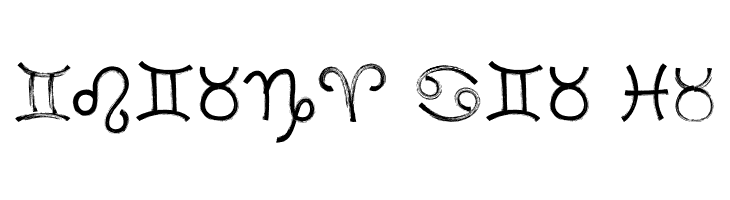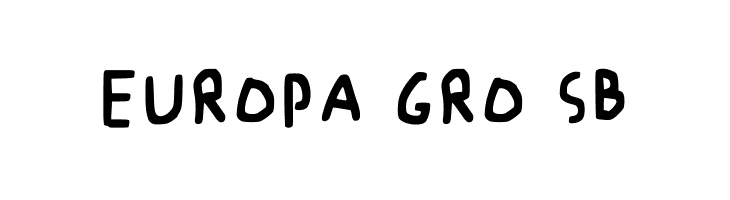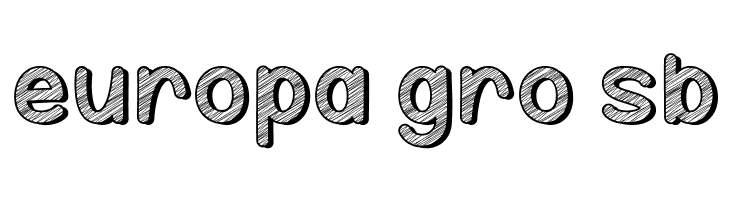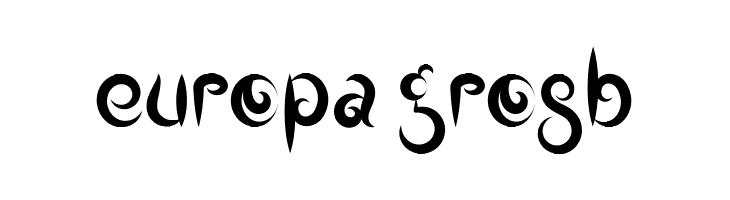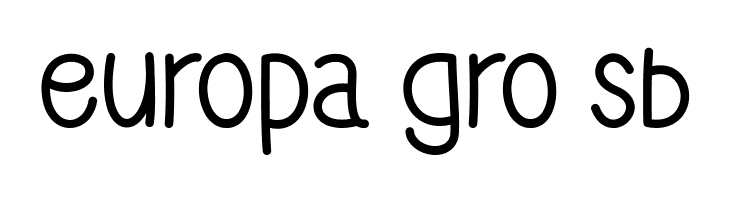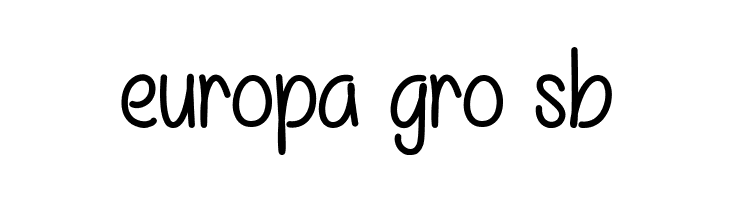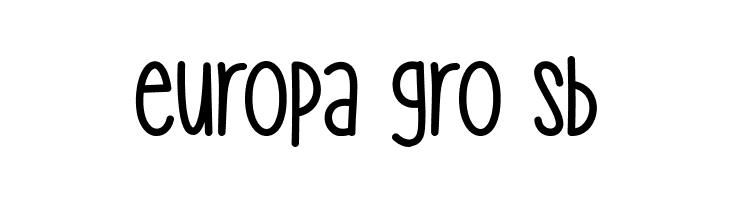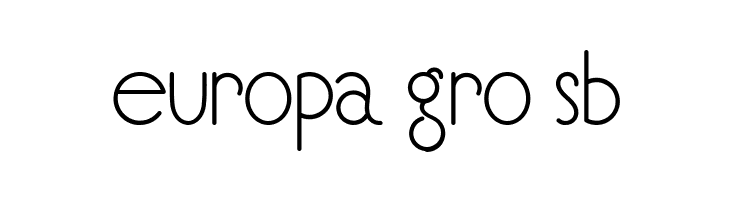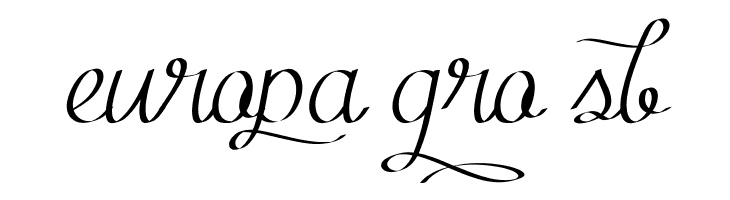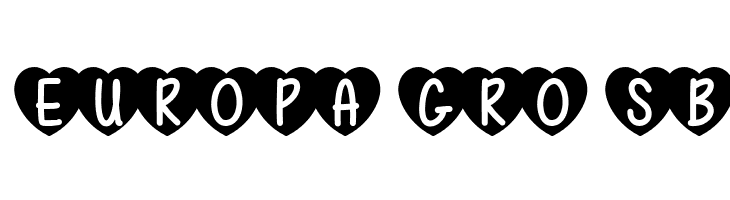
A playful, hand-drawn font with rounded, elongated characters.
A bold, angular font with a dynamic and energetic style.
A playful, rounded font with a friendly and approachable style.
A playful, handwritten cursive font with smooth, connected letters.
A playful, bold, and rounded handwritten font with consistent stroke width.
An elegant, cursive font with flowing, ornate characters.
A bold, artistic font with dramatic strokes and intricate details.
A playful, heart-themed decorative font with whimsical symbols and expressions.
A playful collection of heart symbols and a lip print, perfect for romantic designs.
A decorative font with characters enclosed in heart shapes, perfect for romantic themes.
A playful font with characters enclosed in heart shapes, ideal for romantic themes.
A bold, outlined decorative font with heart-shaped elements for a playful and romantic style.
A playful, rounded font with elongated letterforms and even spacing.
A flowing, elegant cursive font with graceful curves and smooth connections.
A playful, handwritten font with a quirky and casual style.
A playful, hand-drawn font with rounded, friendly characters.
A dynamic, scribbled script font with a playful and energetic style.
A bold, hand-drawn font with a textured, sketch-like pattern and rounded edges.
A modern, geometric font with smooth curves and consistent line thickness.
A playful, hand-drawn font with rounded, irregular strokes.
A playful, handwritten font with quirky, heart-themed elements.
A playful, handwritten font with a whimsical and informal style.
A playful, handwritten font with a friendly and casual style.
A playful, bold handwritten font with rounded edges and a casual style.
A playful, hand-drawn font with rounded edges and a friendly aesthetic.
A decorative font featuring artistic zodiac symbols with a mystical flair.
A decorative font with characters inside snowflake designs, perfect for winter themes.
A playful, handwritten brush-style font with bold, consistent strokes.